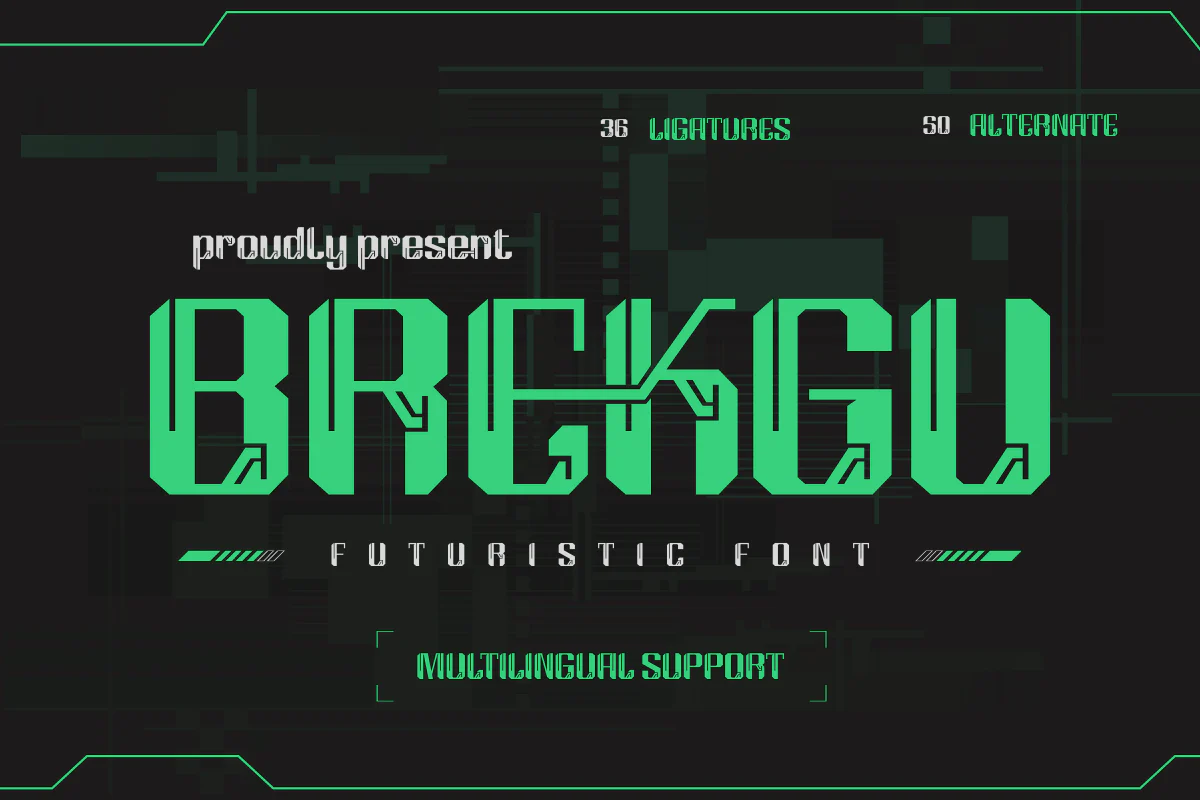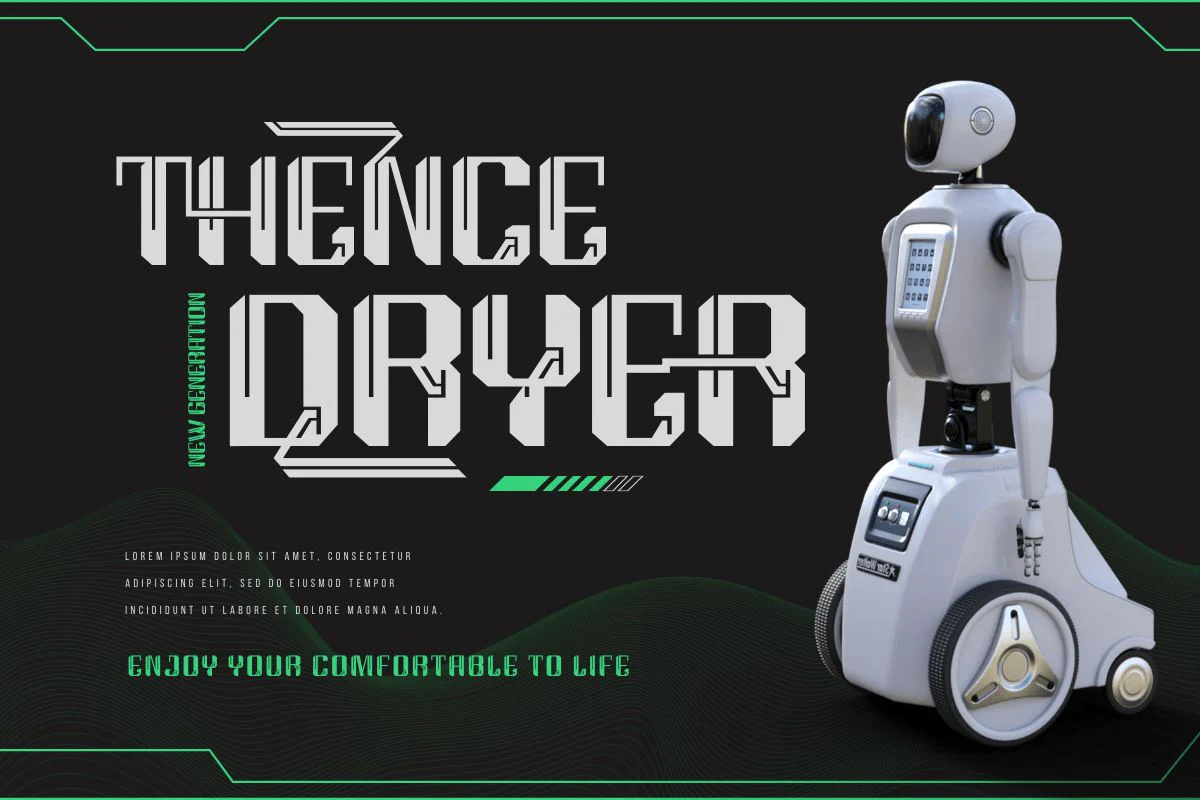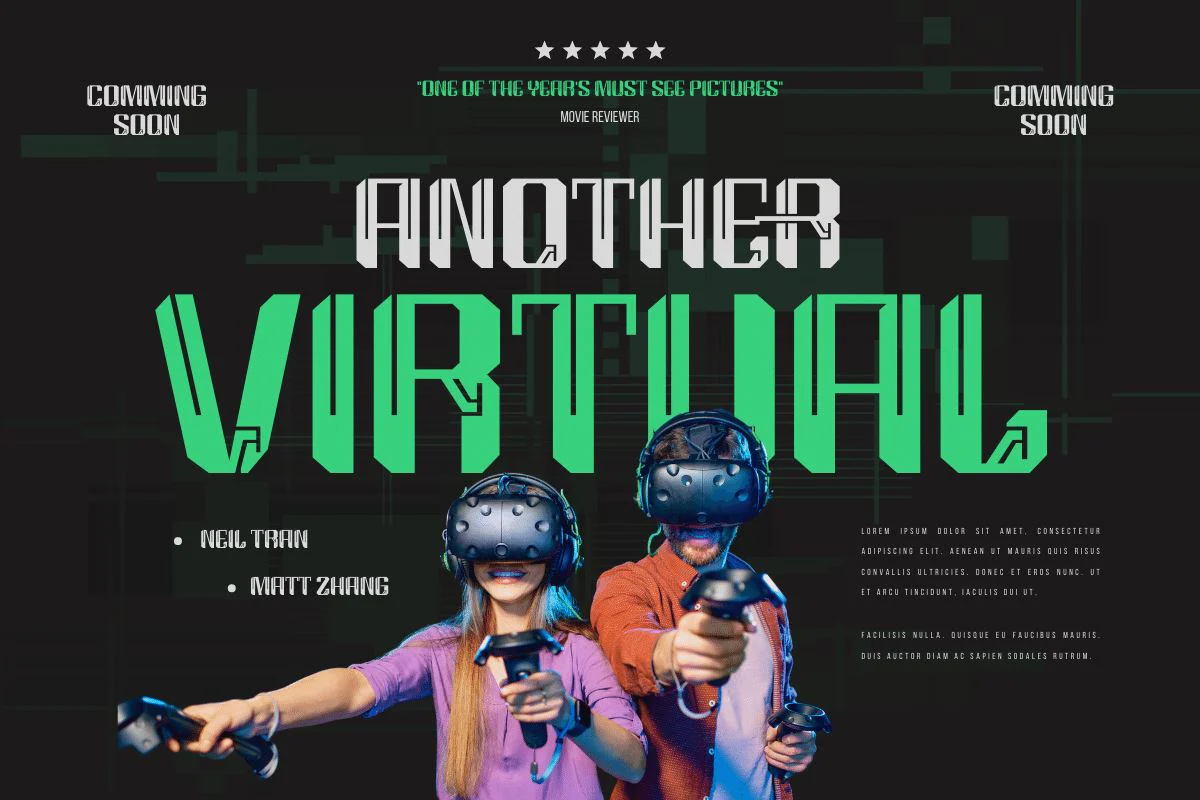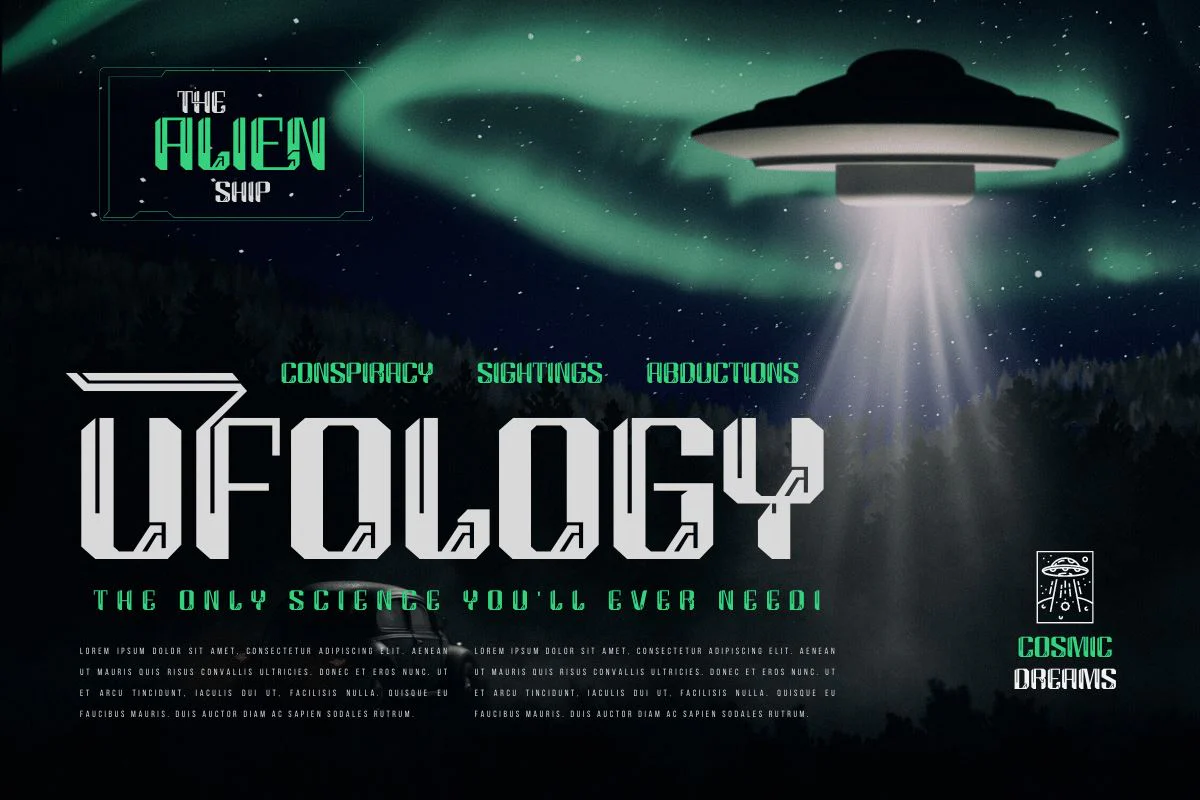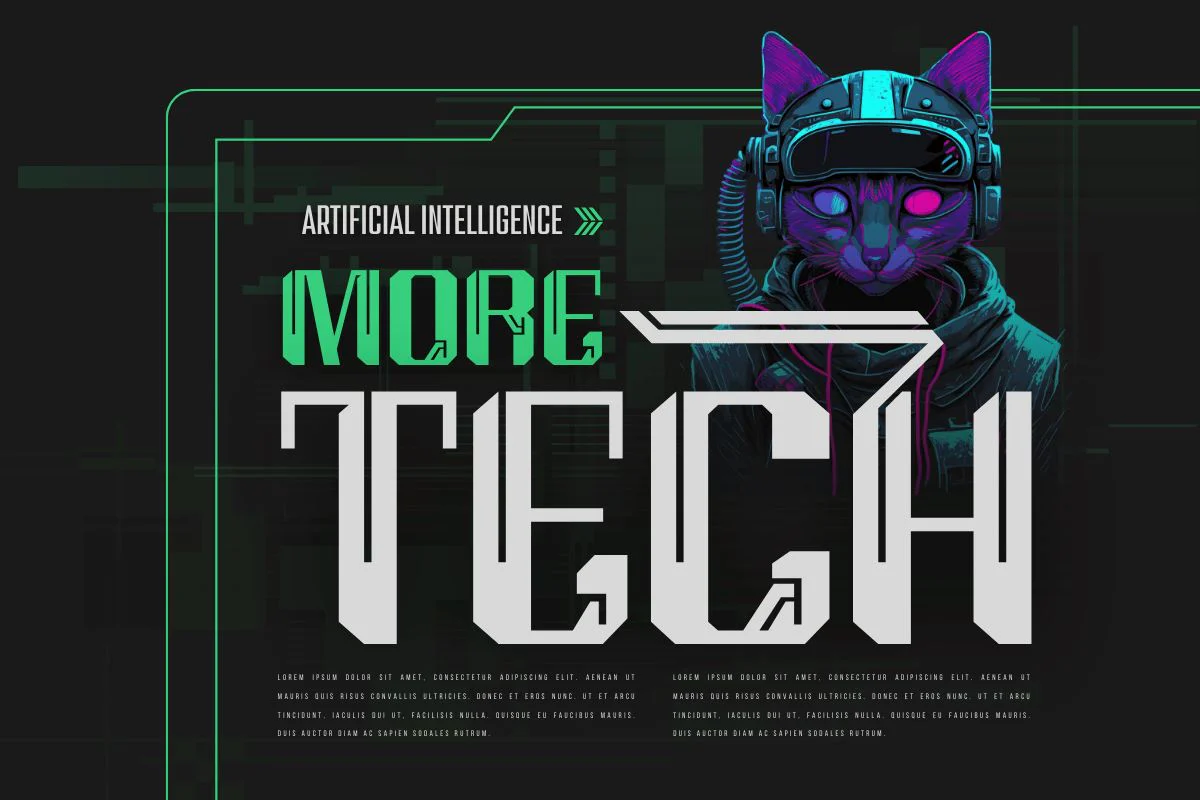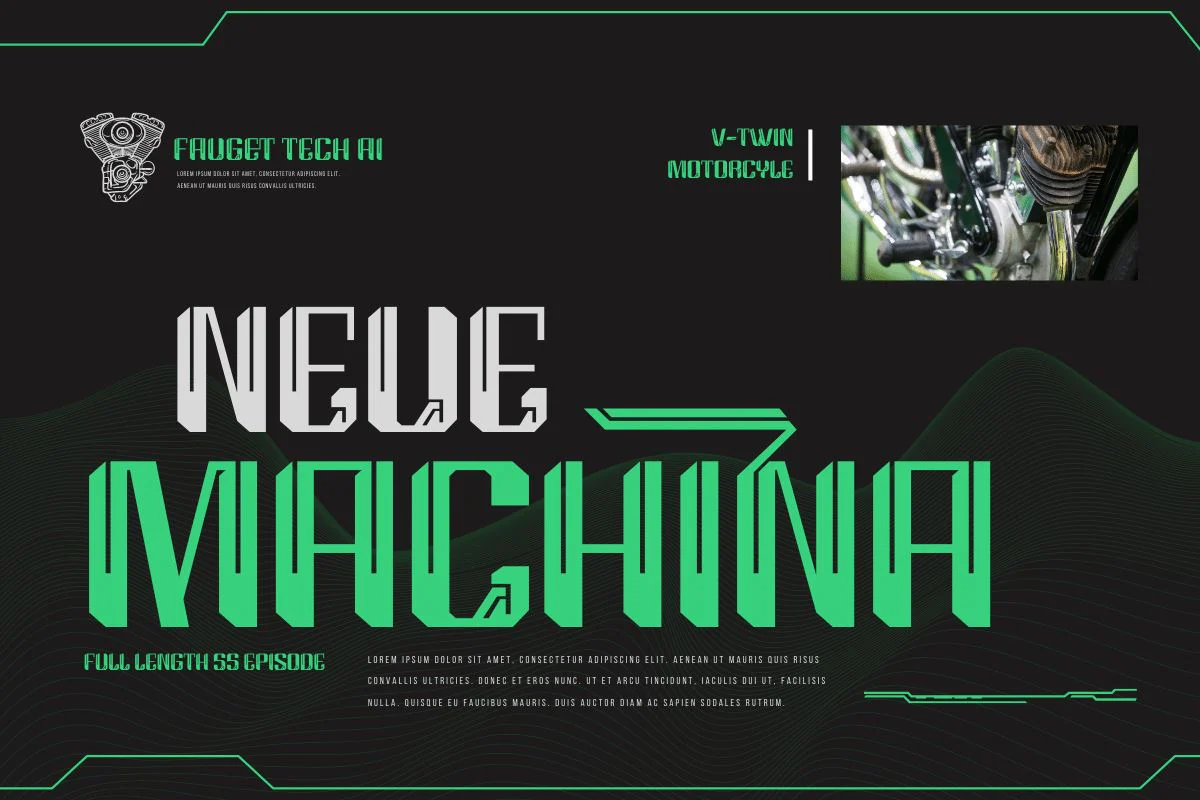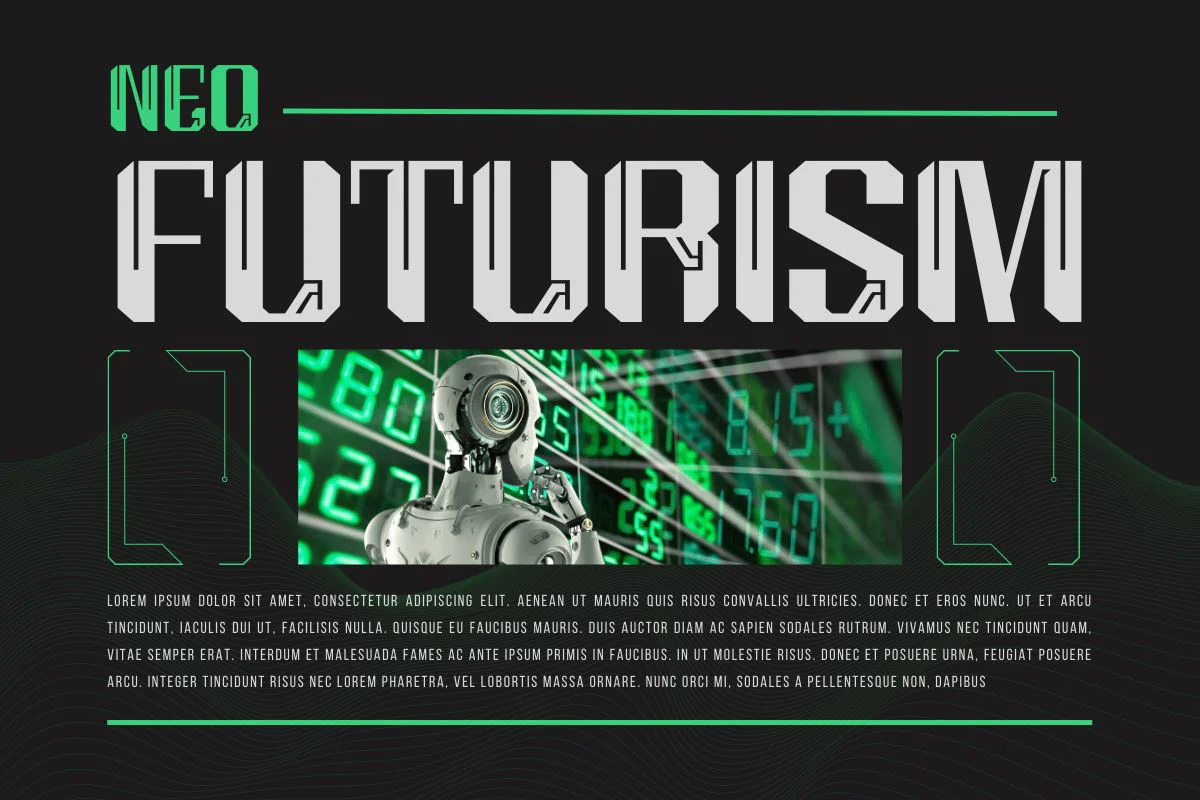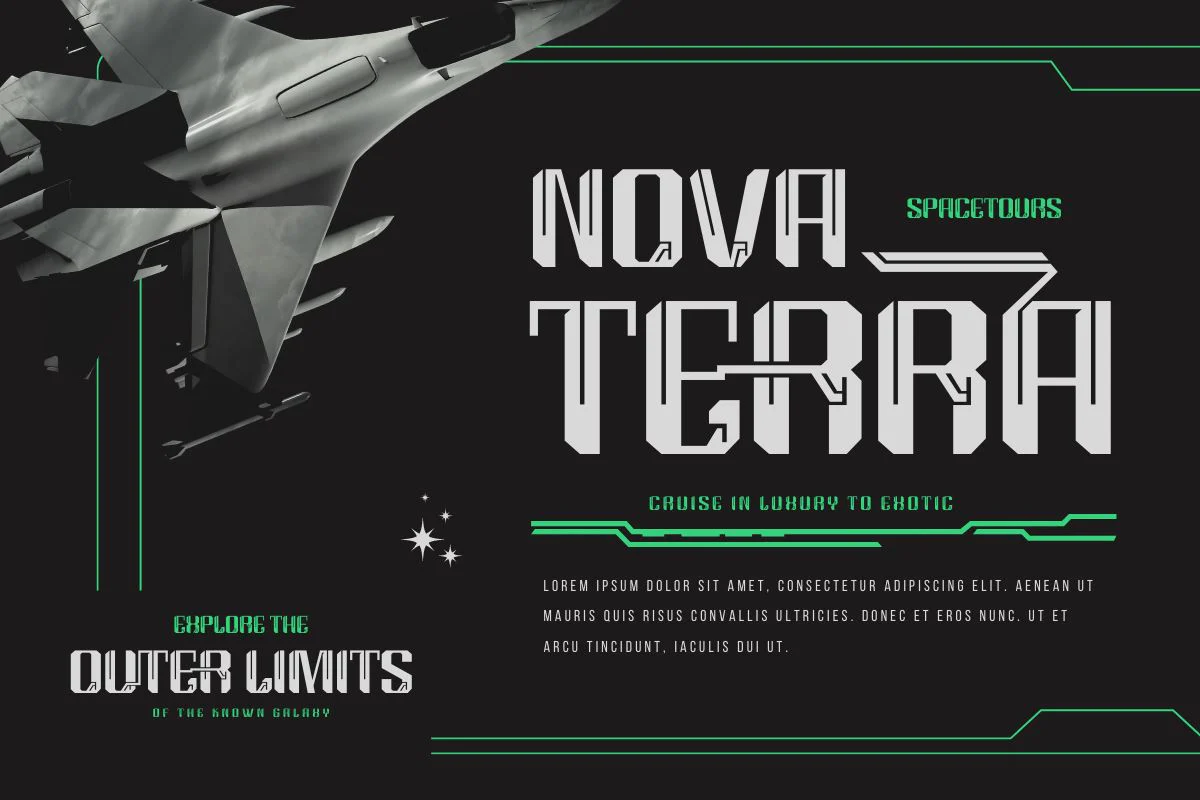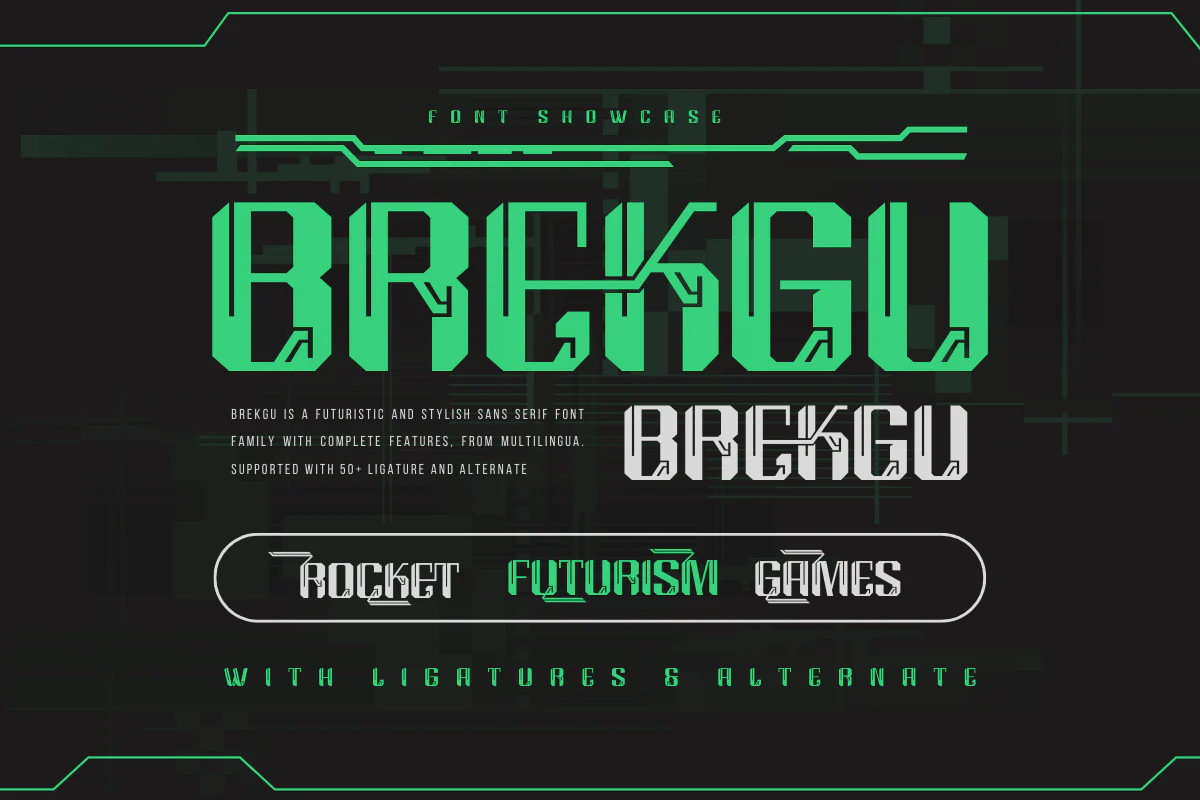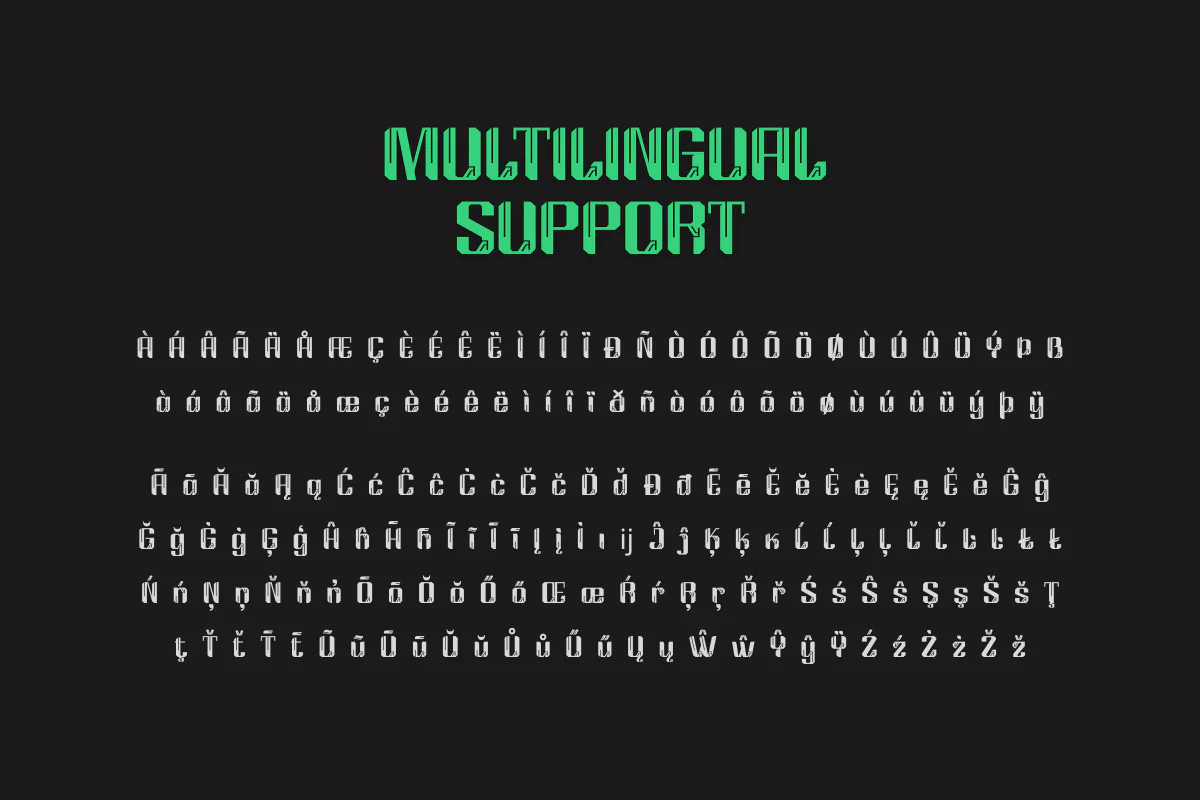
BREKGU | Futuristic Font
Brekgu is ideal for projects that require a futuristic, sci-fi, or high-tech atmosphere. This typeface has a unique, modern appearance and includes features such as ligature, alternative, and multilingual support.
Brekgu allows you to give your designs a bold, dynamic, and attractive style. The letters’ unusual and futuristic shape will make your project stand out from the crowd. Brekgu, when combined with ligatures and alternates, will aid in the creation of incredibly unique and eye-catching designs.
Brekgu is bilingual and adaptable to different languages, allowing you to utilize it for a wide range of worldwide design projects. Don’t pass up the opportunity to use this powerful and stylish font for your creations!
Brekgu is ideal for projects that require a futuristic, sci-fi, or high-tech atmosphere. This typeface has a unique, modern appearance and includes features such as ligature, alternative, and multilingual support.
Brekgu allows you to give your designs a bold, dynamic, and attractive style. The letters’ unusual and futuristic shape will make your project stand out from the crowd. Brekgu, when combined with ligatures and alternates, will aid in the creation of incredibly unique and eye-catching designs.
Brekgu is bilingual and adaptable to different languages, allowing you to utilize it for a wide range of worldwide design projects. Don’t pass up the opportunity to use this powerful and stylish font for your creations!